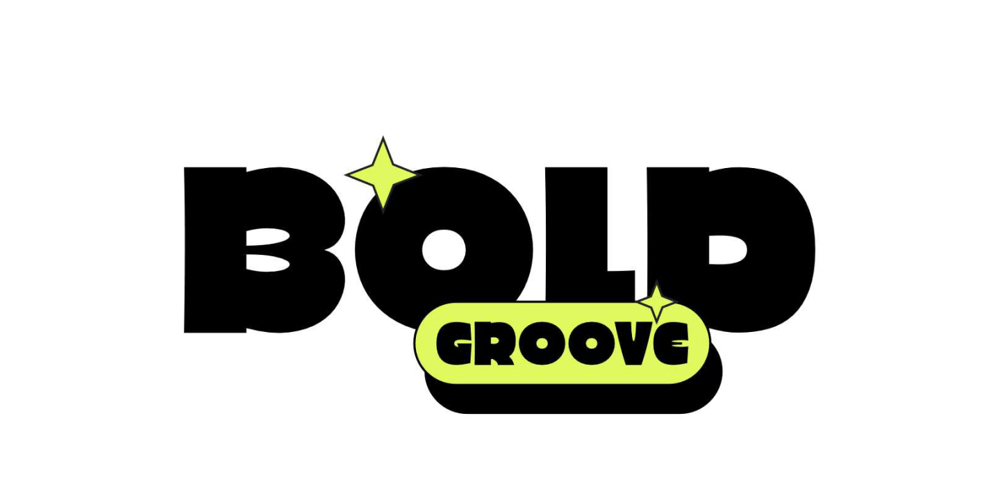
Bold Groove Font Family was designed by Miftahul Habib and published by Wasabib Type Foundry. Bold Groove contains 1 styles and family package options. Is a typeface that carries powerfull message in a modern graphic style with ease.it uniquely combines simplicity and sophistication.BOLD GROOVE has everything you need to add creativityand personality to your design while being easy to read.Let Bold Groove impress your viewers andhelp deliver your message with strong impact.